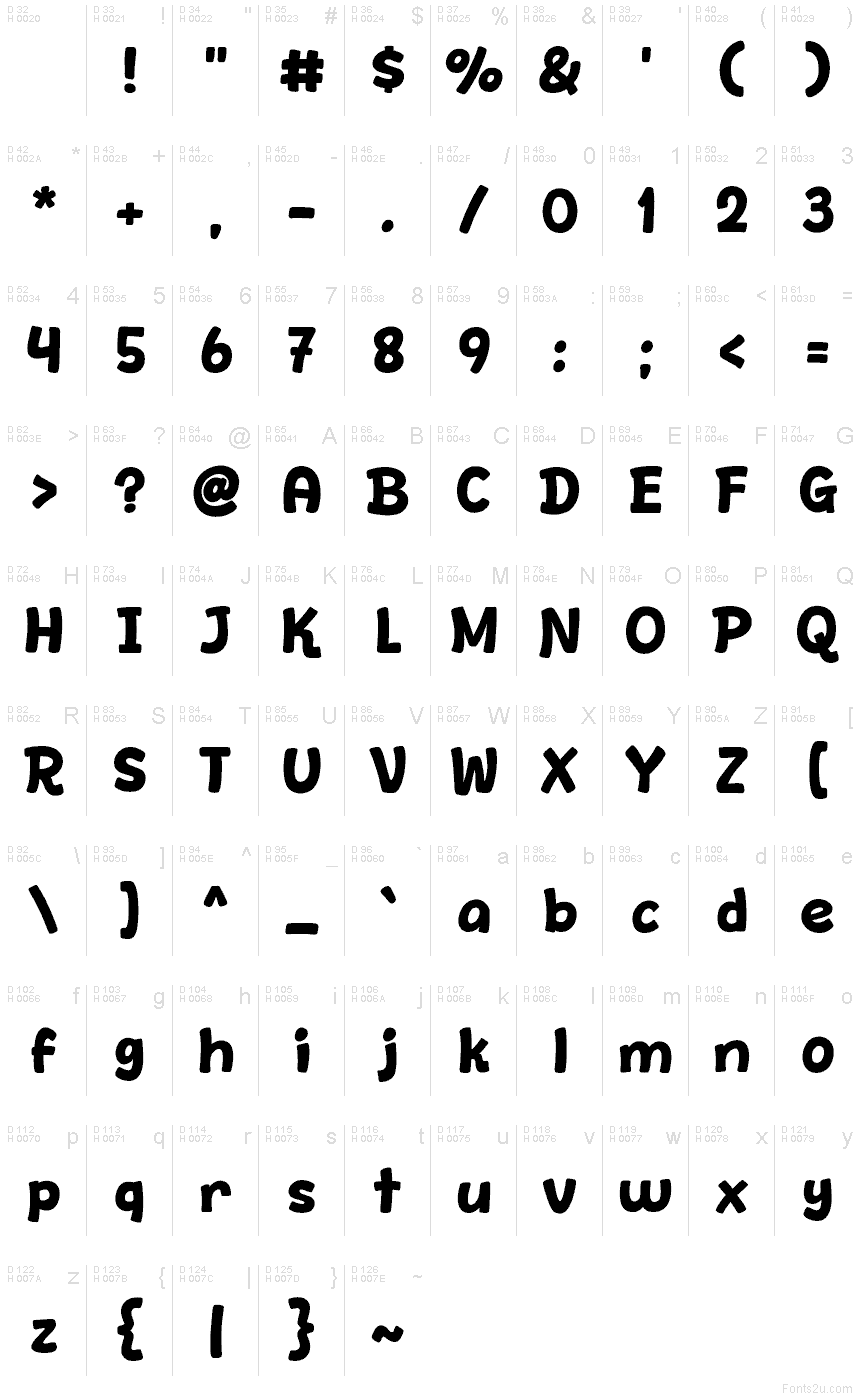
Rencana
Rencana font is a modern free display font designed by Khurasan with smooth, rounded characters. Its bold lines and casual style create a friendly retro cartoonish feel for all your creations. The stunning appearance of each character cannot be overlooked as the letters in this typeface will capture any audience at first glance.
Such an excellent addition to your font collection should never be overlooked. Use it fully in branding designs, prints, and digital publishing projects such as app interfaces and websites. Use it in logo design, banners, posters, stationery items like business cards & ID cards, and billboard advertisements.